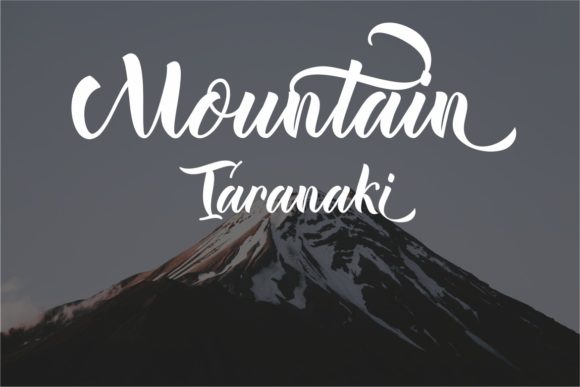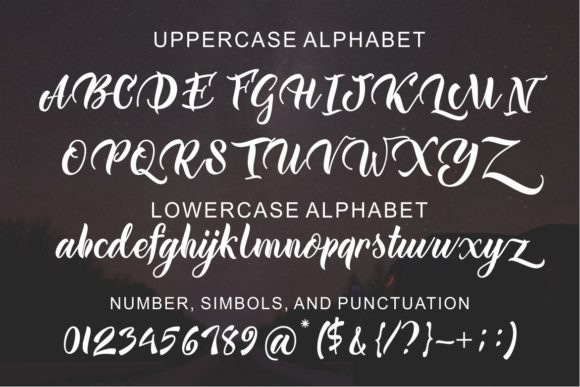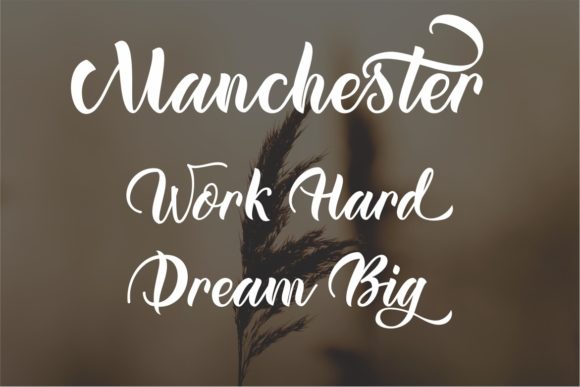
Liberty Font
About Liberty Font
Liberty Script is modern calligraphy font, every single letter has been carefully crafted to make your text looks beautiful. With a modern script style, this font will be perfect for many different projects, for example, invitations, greeting cards, posters, name cards, quotes, blog header, branding, logo, fashion, apparel, letter, stationery, and more!